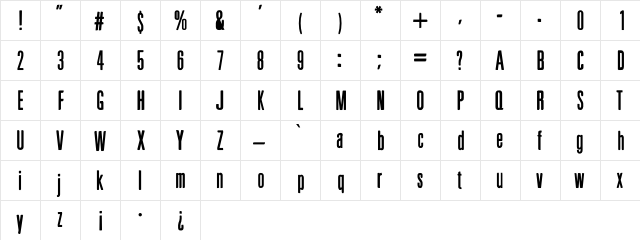
Fury Solid Font Preview
Fury Solid
| Style | Solid |
Design Context for Fury Typeface
Fury takes a measured approach to typography — its balanced proportions and neutral character make it a reliable workhorse for both digital and print work.